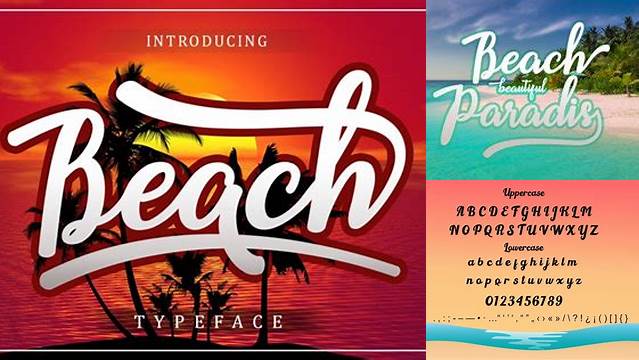
Beach Bold Vintage Script Font: Free Download
Hey guys, ever found yourself dreaming of sun-kissed sands, crashing waves, and that perfect, laid-back vibe for your designs? Well, you're in for an absolute treat! We're diving deep into the wonderful world of a beach free bold vintage script font – a design gem that can instantly transport your projects to a relaxed, retro paradise. Imagine crafting a logo for a cozy beachside cafe, designing an invite for a summer surf party, or even creating social media graphics that ooze nostalgic charm and a touch of the past. This specific type of font isn't just about arranging letters; it's about embracing an entire aesthetic, conveying a feeling, and evoking cherished memories of simpler, sunnier times by the ocean. The true beauty of a beach free bold vintage script font lies in its unique combination of characteristics: the fluid, often calligraphic flow of a script, the undeniable sturdy presence of bold strokes that command attention, the timeless appeal of vintage styling that harks back to eras gone by, and of course, the undeniable connection to coastal themes that make you feel like you can almost smell the salty air. And here’s the absolute best part, guys? We're talking about free options here, making high-quality, professional-grade design accessible to absolutely everyone, regardless of budget or experience. Forget endless hours scouring countless websites in vain; we’re going to help you not only understand why this distinct font style is so incredibly impactful but also precisely how you can leverage its power in your own creative endeavors. Whether you're a seasoned graphic designer looking for that perfect touch, a budding blogger aiming to enhance your brand, or just someone who loves to add a unique, personal touch to their personal projects, understanding the nuances and versatility of these fonts can truly elevate your work from good to absolutely unforgettable. From the subtle imperfections that naturally give it character and authenticity to the way it effortlessly evokes a sense of freedom, adventure, and warmth, a well-chosen beach free bold vintage script font can speak volumes without ever needing to say a single word. So, metaphorically speaking, grab your virtual sunscreen and your favorite refreshing drink, because we’re about to embark on an exciting journey to discover how to find, effectively use, and completely fall in love with these absolutely stunning, versatile, and often overlooked typefaces. This isn't just about merely picking a font from a dropdown menu; it's about meticulously capturing a specific mood, telling an engaging story, and making your visual designs genuinely unforgettable and truly stand out in a crowded digital landscape. We'll explore its fascinating origins, its myriad applications across different mediums, and most importantly, how to maximize its incredible potential to bring your visions to life with a coastal flair.
Unveiling the Charm of Beach Script Fonts
When we talk about a beach script font, guys, we're really digging into a whole vibe, not just a typeface. These fonts are designed to evoke the relaxed, carefree spirit of the coast, often featuring flowing lines that mimic ocean waves or the casual hand-lettering you might see on an old surf shop sign. The charm comes from its inherent ability to transport your audience to a sunny destination, no matter where they are. Think about it: a beautifully crafted beach script font on a summer event poster immediately sets the mood, hinting at boardwalk strolls, sandy toes, and endless blue skies. It's more than just aesthetics; it's about emotional connection. Many designers gravitate towards these styles for projects related to travel, tourism, summer fashion, beach weddings, and even food packaging for tropical-themed products. The natural, organic feel often associated with beach script fonts makes them incredibly versatile for both digital and print media, allowing for a consistent brand identity across various touchpoints. What makes them particularly charming is their departure from rigid, formal typography; instead, they embrace a more human, handcrafted touch that resonates with audiences looking for authenticity. This style isn't just a trend; it's a timeless appeal rooted in a universal love for the ocean and leisure. Exploring different variations, you'll find some that are more whimsical, others more elegant, but all carrying that unmistakable coastal whisper. Understanding this core appeal helps you choose the right beach script font to tell your brand's unique story and create designs that truly stand out in a sea of generic visuals. It's about infusing your work with personality and a sense of inviting warmth that only a truly evocative font can provide, drawing people in with its effortless grace.
The Power of Bold Typography in Beach Designs
Let's chat about why a bold element is super important when picking a beach bold vintage script font, guys. Being bold isn't just about making something bigger; it's about making it command attention and adding a level of confidence and weight to your design. In the context of beach-themed visuals, a bold typography choice can really make your message pop against vibrant backgrounds or busy imagery, ensuring that your key information is seen and understood instantly. Imagine a vibrant beach party flyer; a light, wispy script might get lost, but a bold script will cut through the noise, anchoring the design with its strong presence. This weight also lends a sense of stability and impact, which is crucial for branding, headlines, and calls to action. It gives your text a strong foundation, preventing it from appearing flimsy or delicate, especially when paired with the fluid nature of a script. Moreover, boldness enhances readability, making the text legible from a distance or on smaller screens, which is a major win for user experience. It allows you to create visual hierarchy, guiding the viewer's eye to the most important elements first. A well-chosen bold beach font can convey a sense of fun and excitement, while also communicating reliability. It’s like the strong, steady rhythm of ocean waves – powerful yet inviting. Using a bold weight isn't about shouting; it's about projecting an assured voice, one that is confident in its message and unafraid to make an impression. So, when you're looking for that perfect beach bold vintage script font, remember that the 'bold' aspect is key to giving your designs the prominence and visual punch they need to truly capture attention and leave a lasting mark on your audience, making your work memorable and effective in its communication.
Embracing Vintage Aesthetics with Script Fonts
Alright, let’s talk about that awesome vintage touch, guys! When you’re looking for a vintage script font, you're essentially tapping into a treasure trove of design history, bringing a sense of nostalgia, authenticity, and classic elegance to your projects. This isn't just about looking old; it's about harnessing the timeless appeal of styles from bygone eras – think mid-century advertising, classic movie posters, or handcrafted signs from the 50s and 60s. A vintage script font often features distinctive letterforms, unique ligatures, and sometimes a slightly distressed texture that mimics the natural wear and tear of time, adding character and a story to your typography. This aesthetic is incredibly popular for brands aiming for a heritage feel, products that emphasize craftsmanship, or any design seeking to evoke a sense of warmth and familiarity. Pairing the vintage element with a script style creates a beautiful synergy: the elegance and flow of script are grounded by the classic, often robust feel of vintage design. It suggests a history, a legacy, and a certain artisanal quality that modern, sleek fonts often lack. This can be particularly effective for beach-themed designs that want to harken back to the golden age of seaside resorts, retro surf culture, or timeless vacation memories. The beauty of a vintage script font lies in its ability to transport viewers, to make them feel a connection to something enduring and well-loved. It's an opportunity to infuse your work with a rich narrative and an aesthetic that stands the test of time, proving that some styles truly never go out of fashion. By carefully selecting a vintage script font, you're not just choosing type; you're choosing a feeling, a memory, and a powerful visual language that resonates deeply with people who appreciate classic beauty and enduring charm in their design.